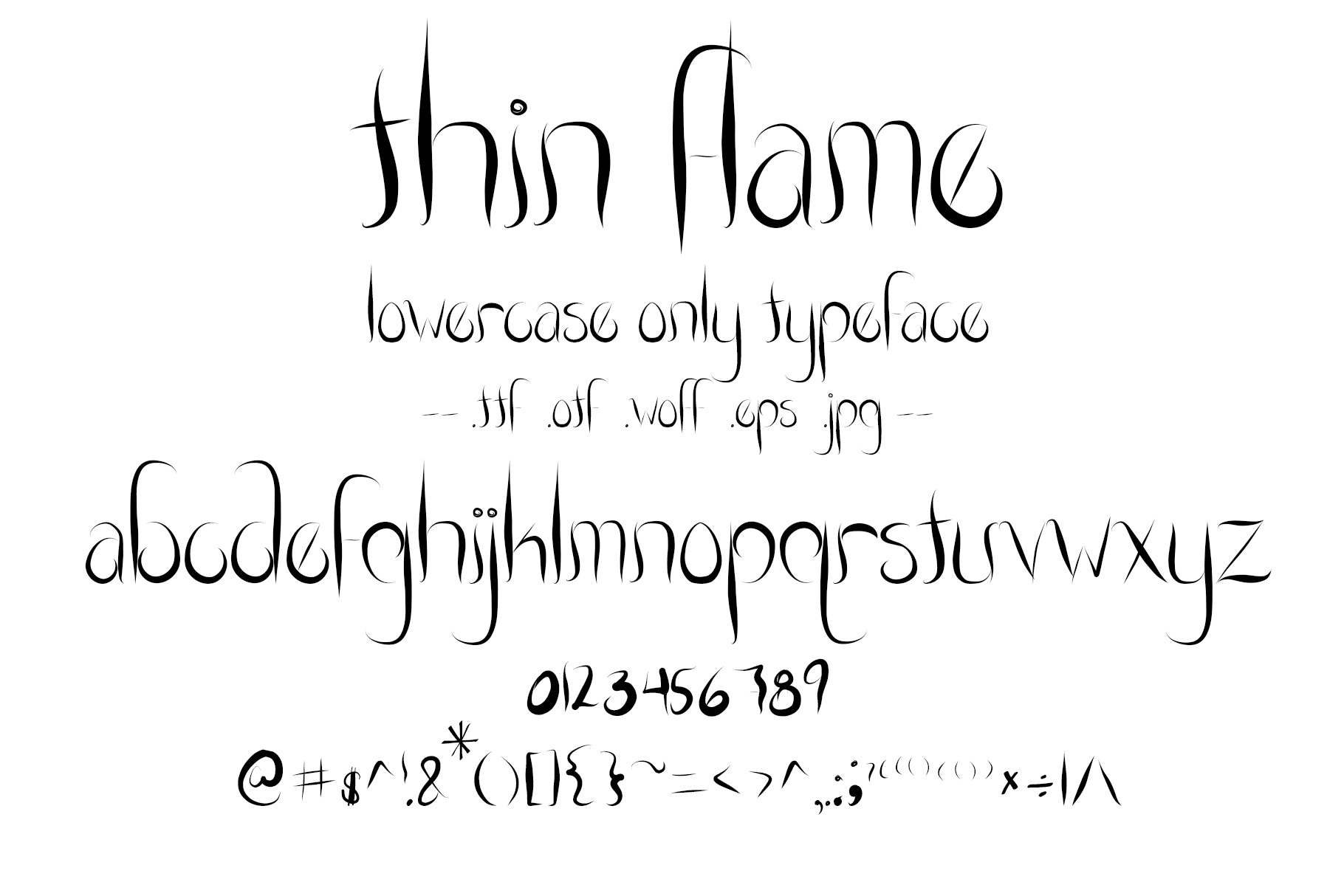
Font Thin Flame Fire Flickering Set
Creative hand drawn font vector. Letters in the shape of thin flames of fire. Letters are flowy, willowy, and very thin. Lowercase.